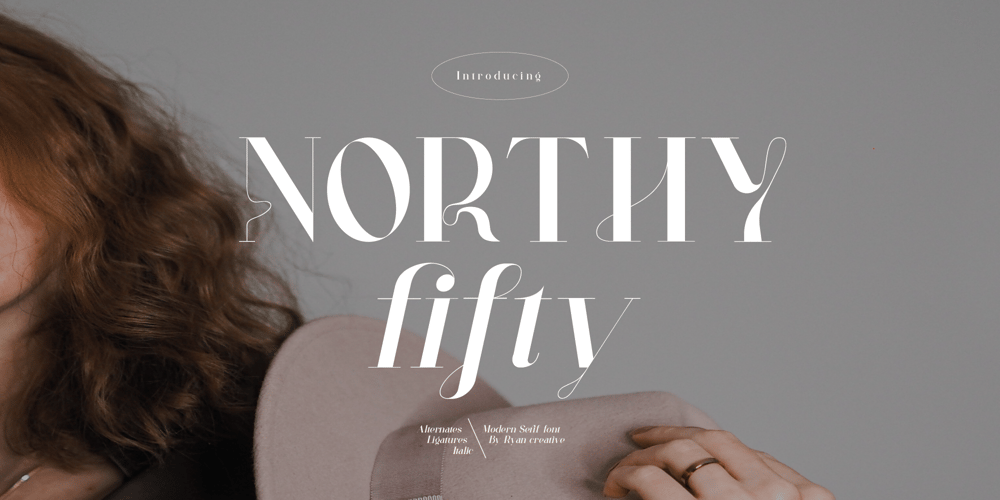
Northy fifty Font Family was designed by ryan creative and published by ryan creative. Northy fifty contains 2 styles and family package options. Creative greetings…Introducing the Northy fifty font which has a modern looking design. In this font there are additional arches at each foot of the letter so that it looks more elegant. Northy fifty has Alternate and Ligature that you can use in both modern and contemporary designs, and are suitable for use in a variety of fashion media, posters, modeling magazines, typography, promotions and other digital media.FEATURES;-Uppercase and lowercase letters.-Support Foreign, Numbers and Punctuation.-Alternative, Ligature-Regular & Italic.-Works on PC.-Simple installation.-Accessible in Adobe Illustrator, Adobe Photoshop. Adobe InDesign, it even works in Microsoft Word.-Fully accessible without additional design software.Northy fifty is coded with Unicode PUA, which allows full access to all additional characters without having to design any special software. Mac users can use the Font book, and Windows users can use the Character map to view and copy any extra characters to paste into your favorite text editor/app.Thanks for visiting, have a nice day ๐